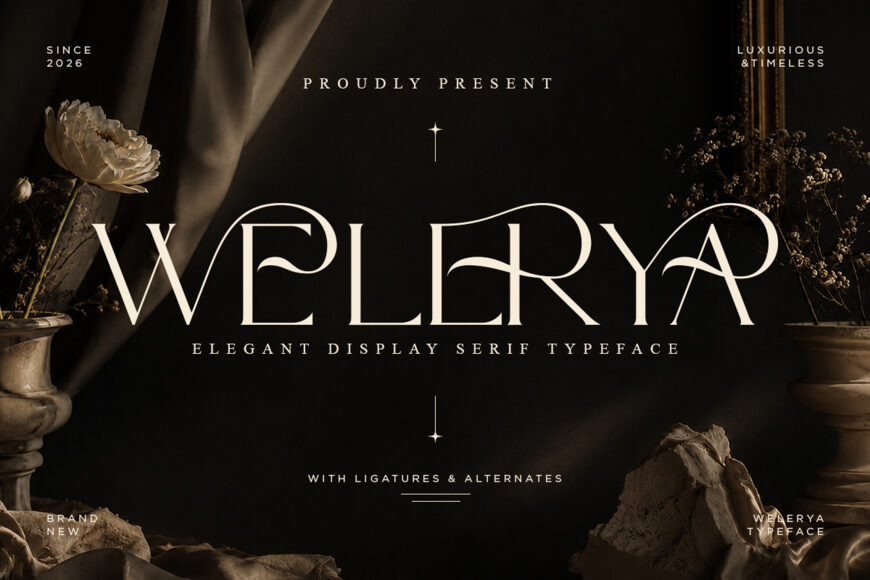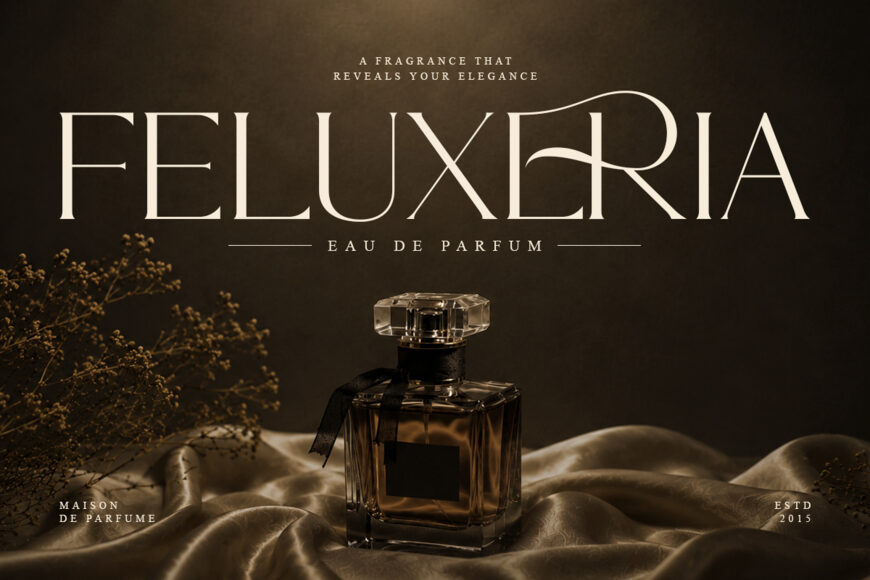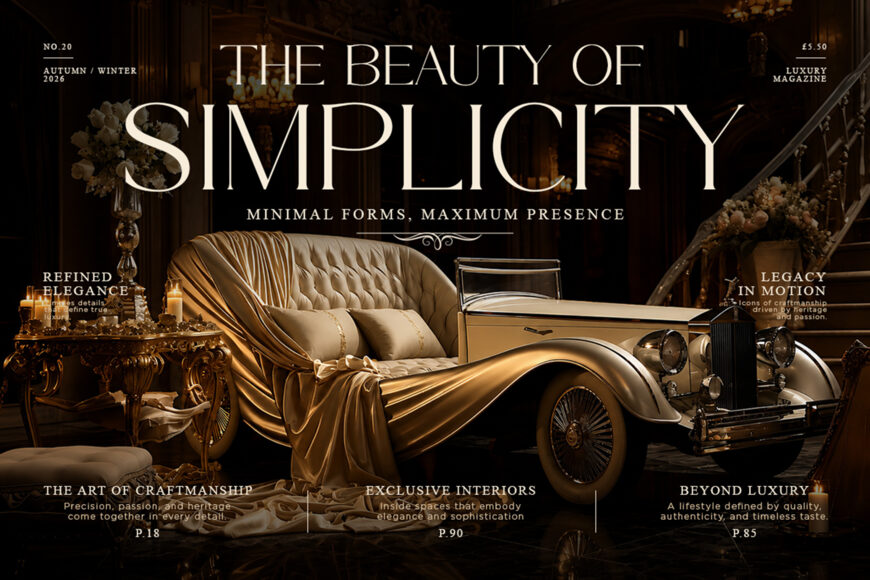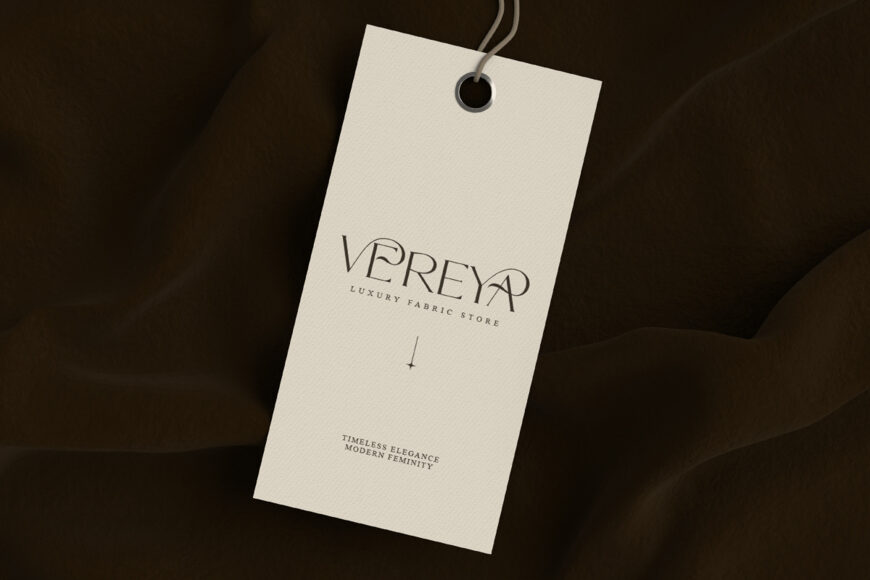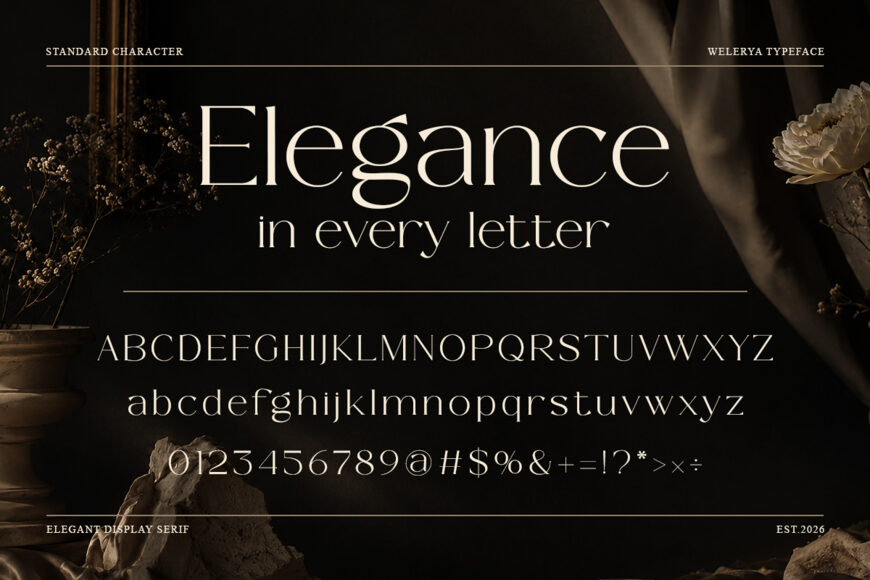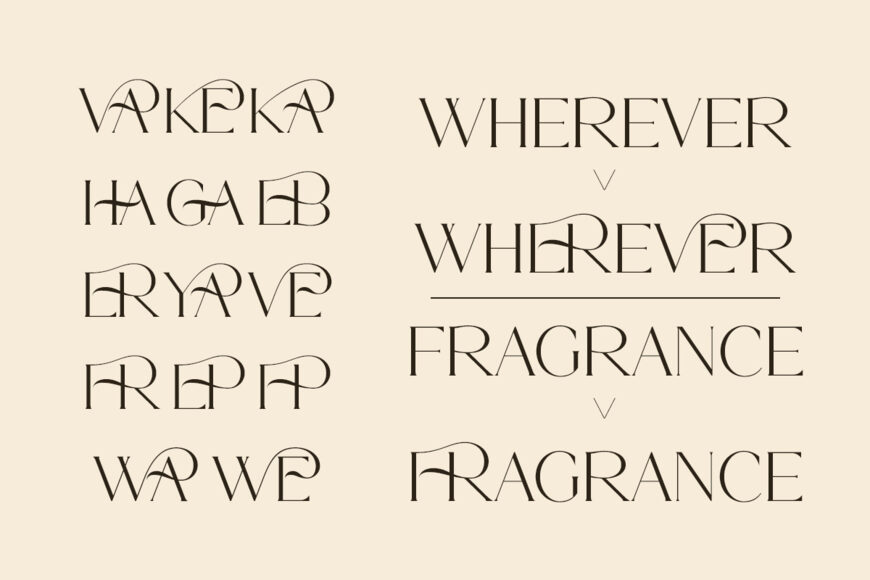
Welerya Font
Meet Welerya, an elegant modern serif designed to add a luxurious, refined, and minimalist touch to your creative projects. Its distinctive uppercase letters and stylish ligatures give every design a polished, customizable look.
Welerya is ideal for logos, brand identities, websites, wedding invitations, business cards, greeting cards, posters, magazines, social media graphics, stationery, and more. Whether you’re creating a sophisticated brand or an elegant printed piece, Welerya brings timeless beauty and contemporary style to your work.